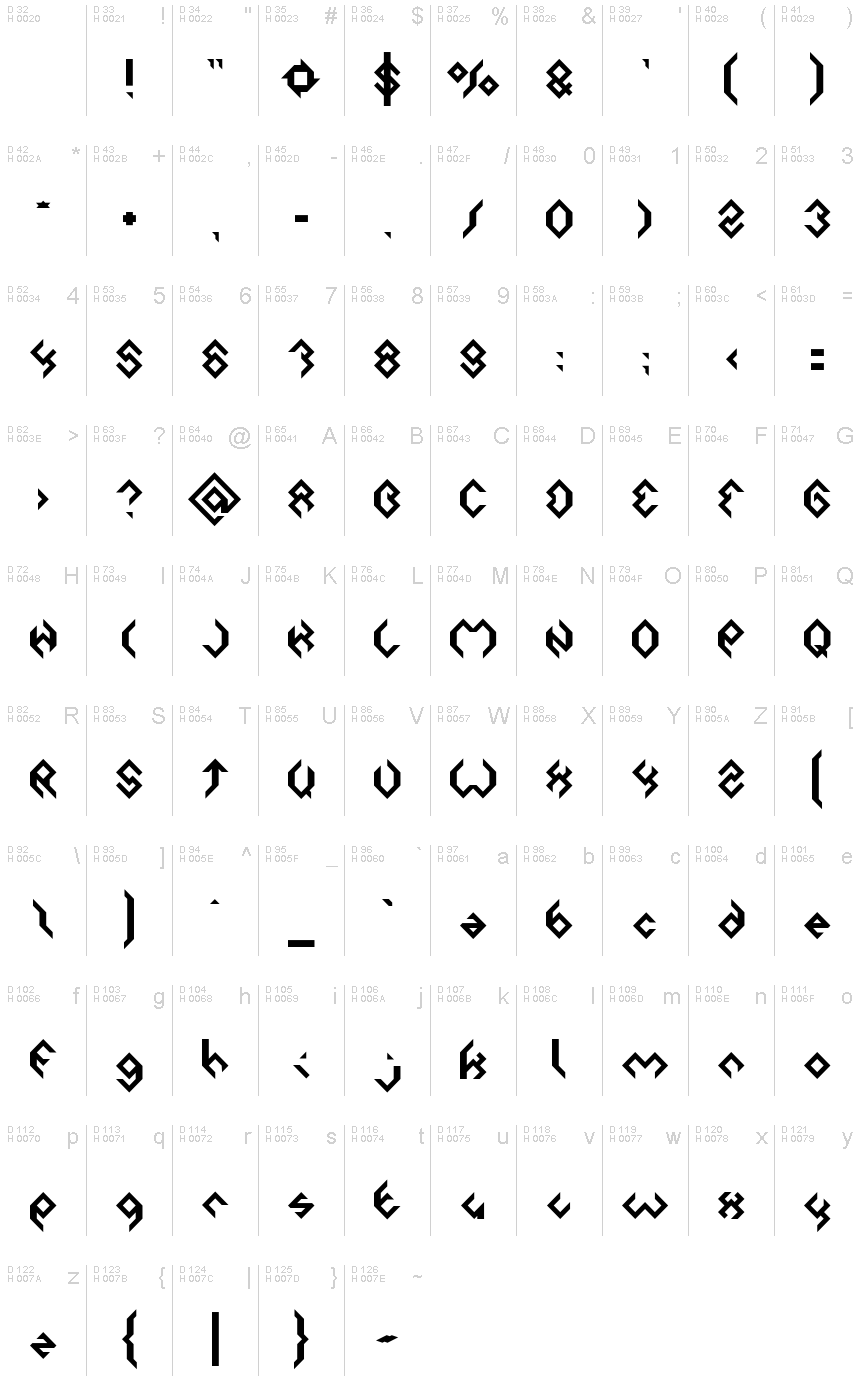
DIAMOND
Diamond font by weknow is a striking display typeface, perfect for creating captivating digital and print designs. With its techno style, each letter exudes a geometric and futuristic vibe, making it ideal for modern, edgy projects. The unique aesthetic of the Diamond font is defined by its bold forms and sharp angles, reminiscent of a digitalized world.
This free font is particularly well-suited for branding and headlines in tech-related materials or creative showcases. Whether you're looking to enhance your website or design eye-catching posters, Diamond provides an exceptional choice. Its distinctive character ensures your message stands out.